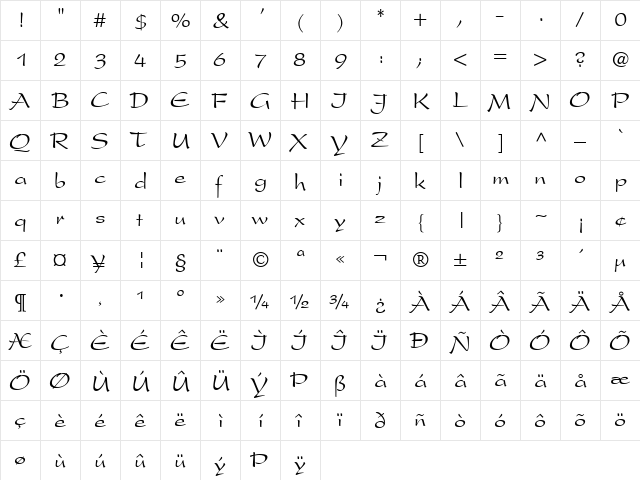
Hansa Regular Font Preview
Hansa Regular
Hansa Regular Font Details
Design Context for Hansa Typeface
Hansa is a composed and adaptable typeface that performs quietly and consistently across a wide range of design contexts.